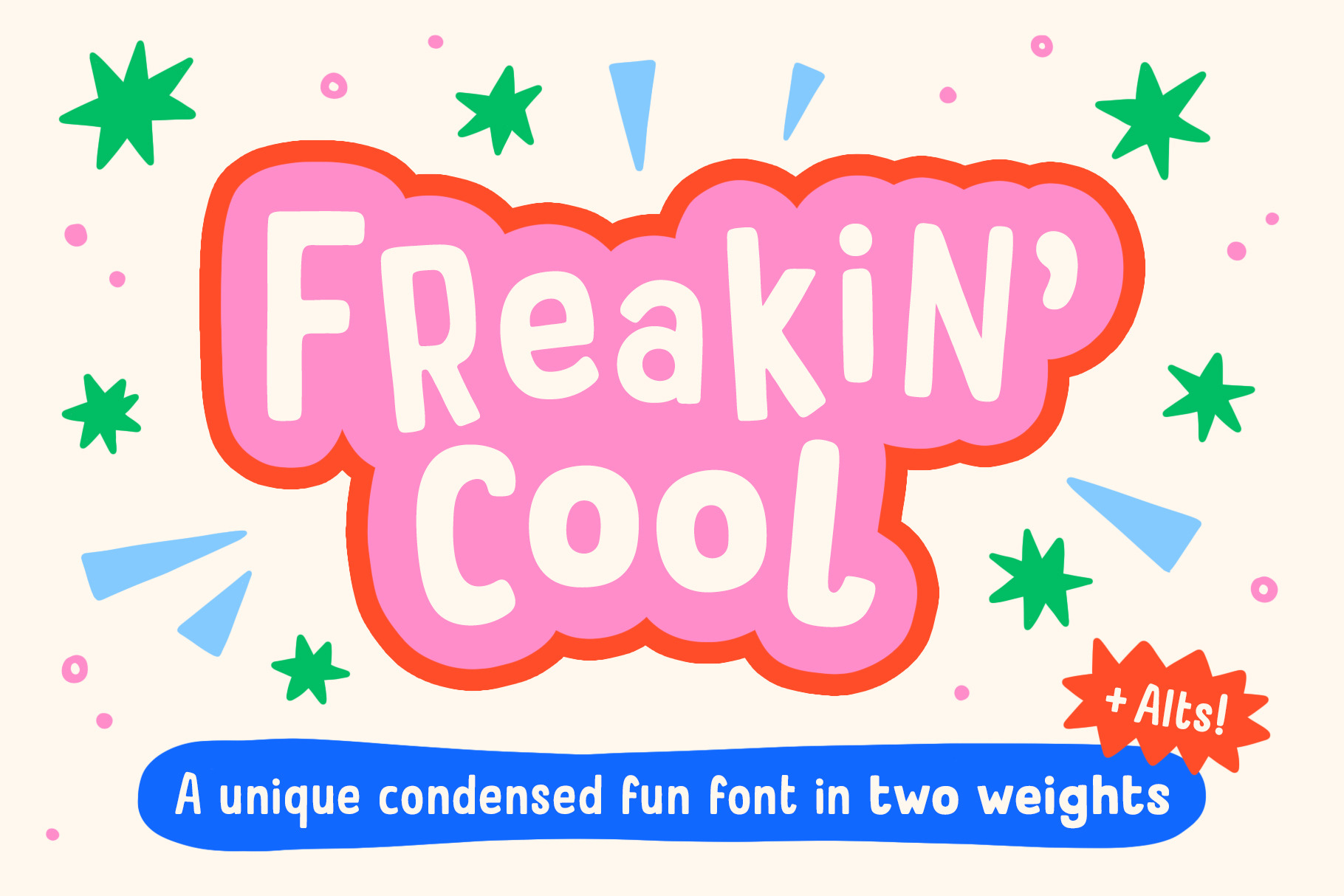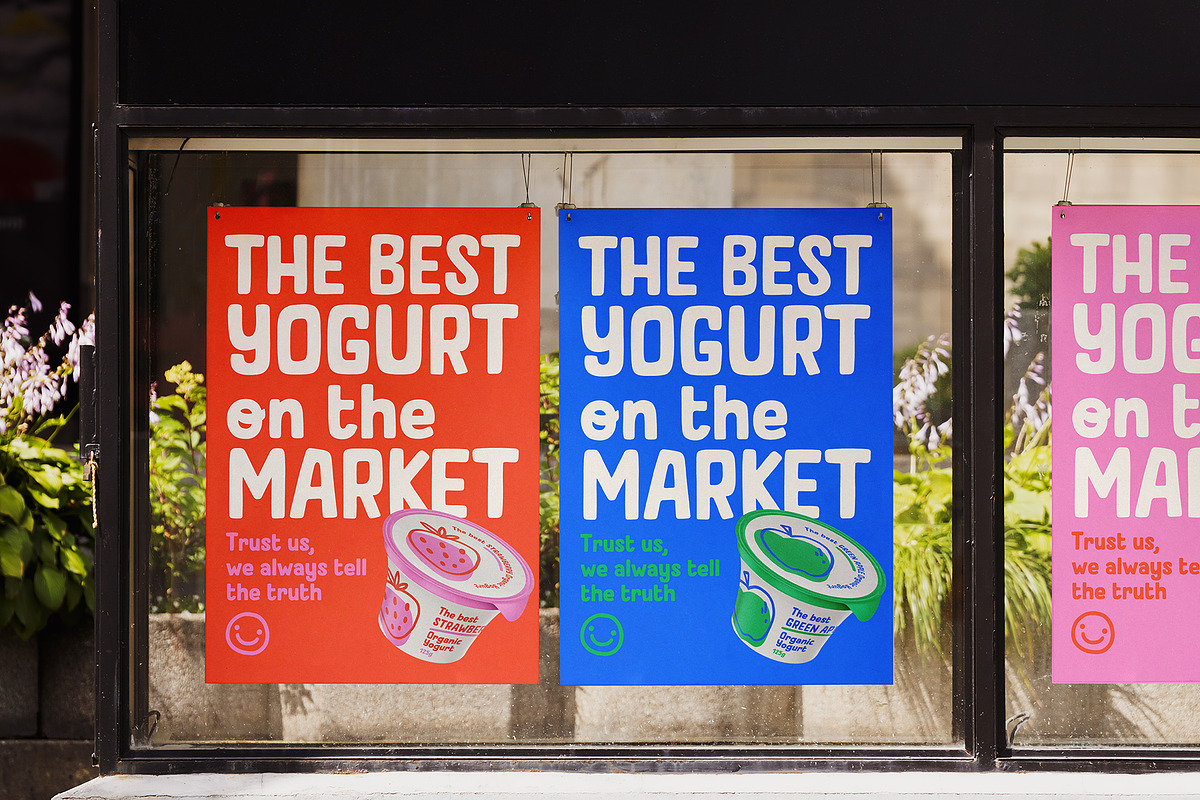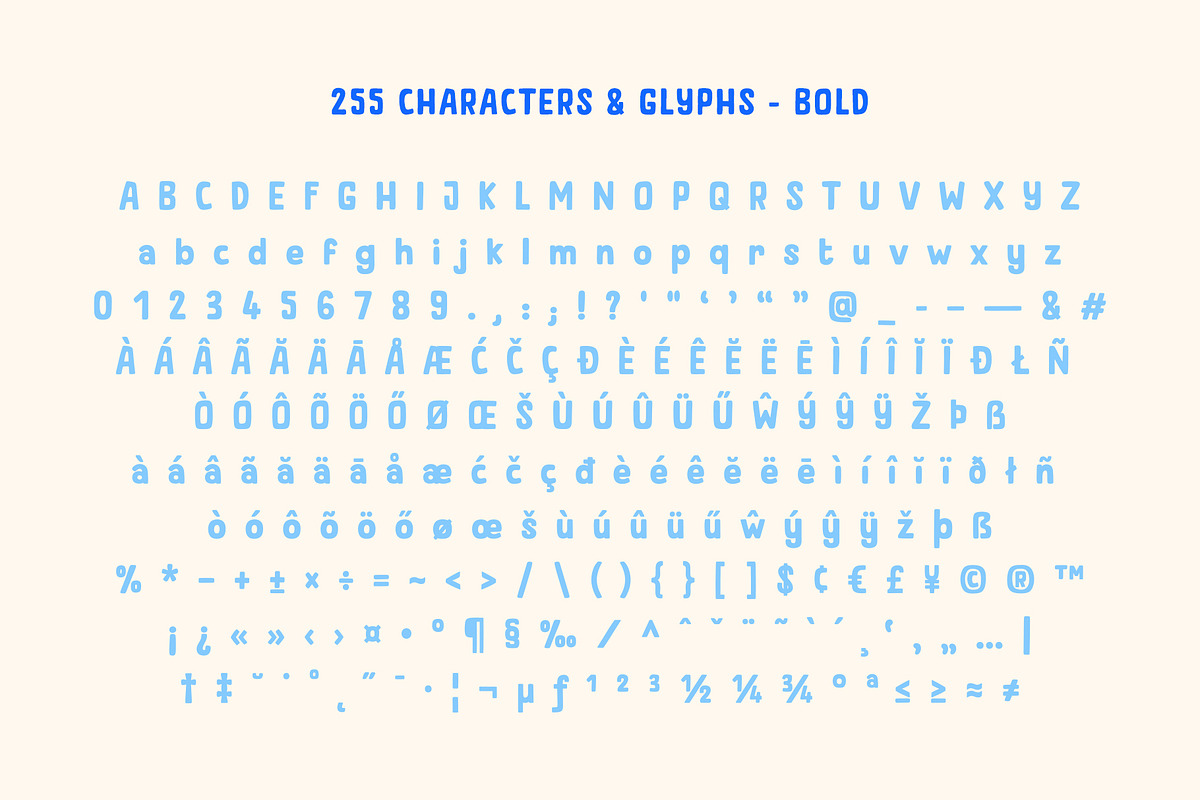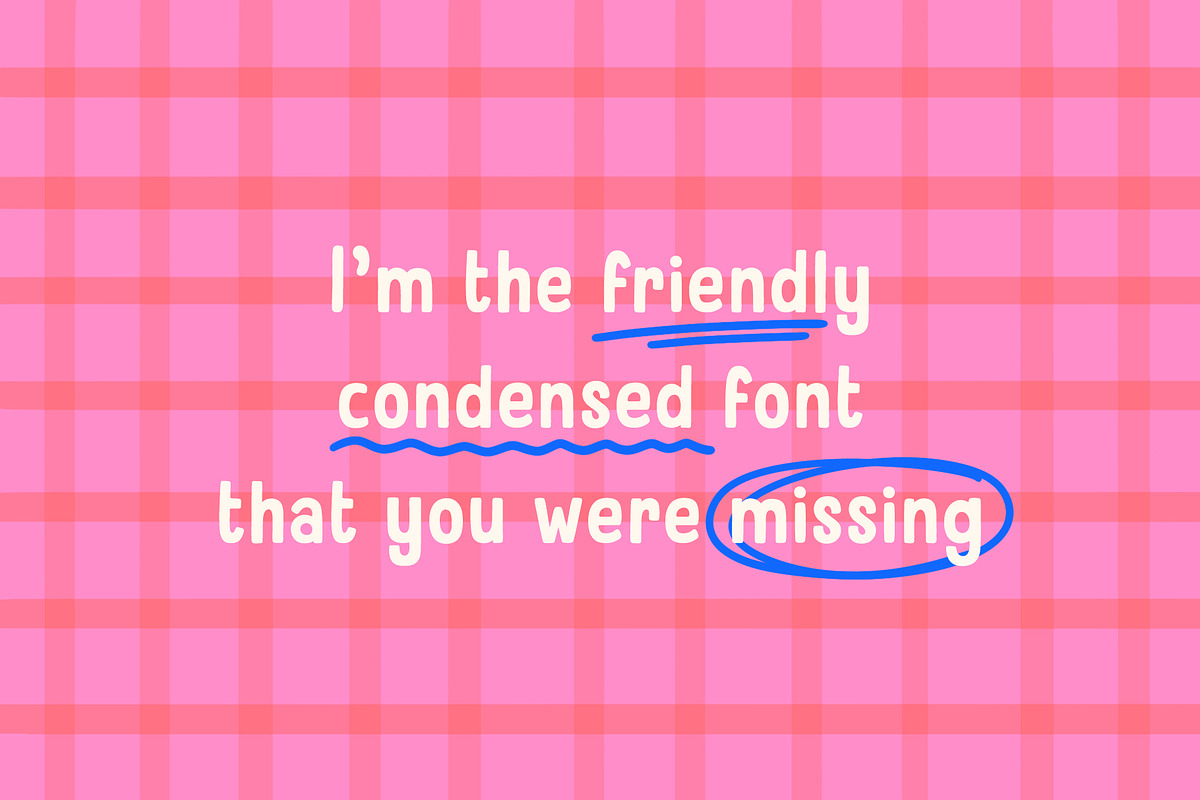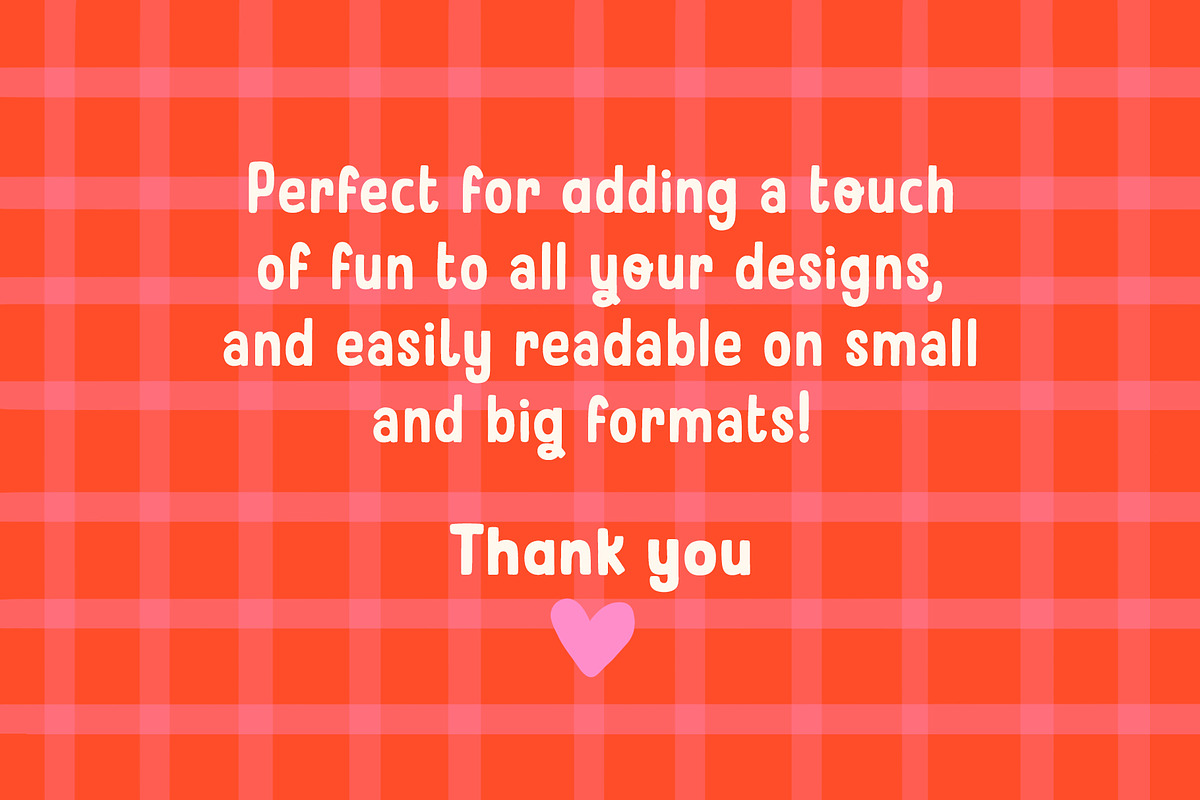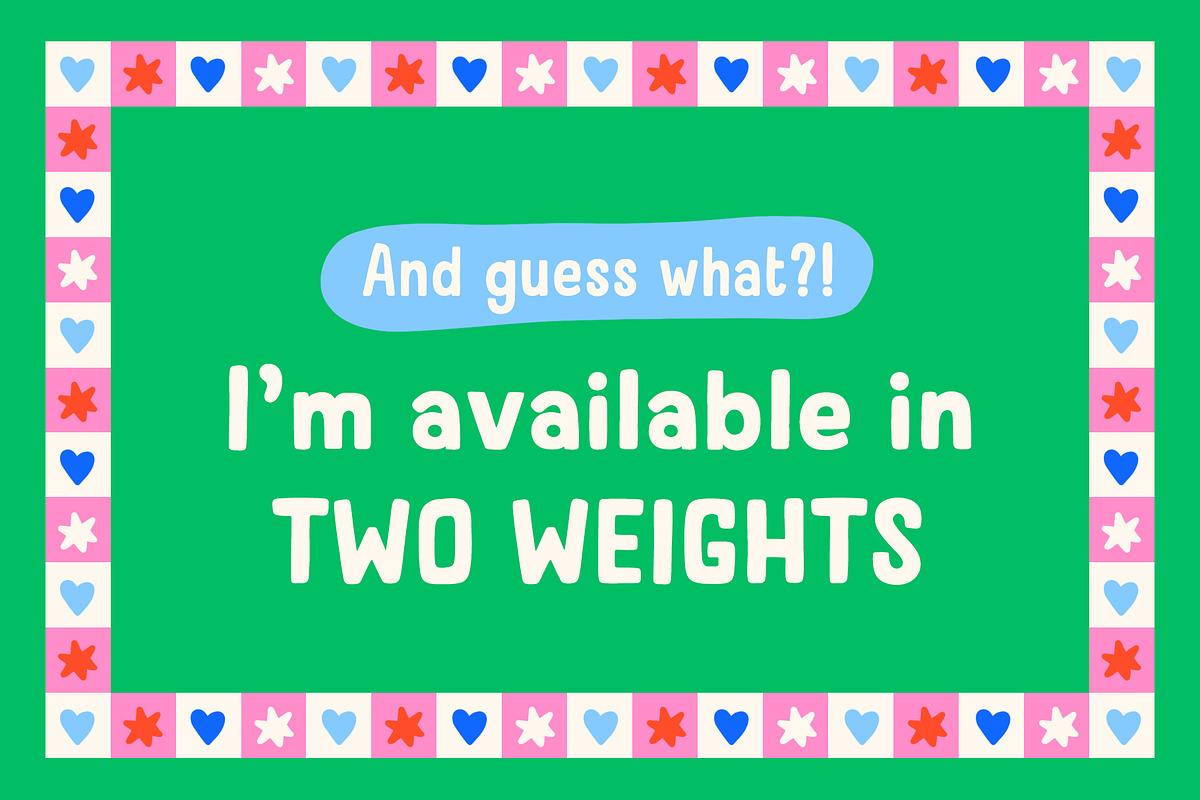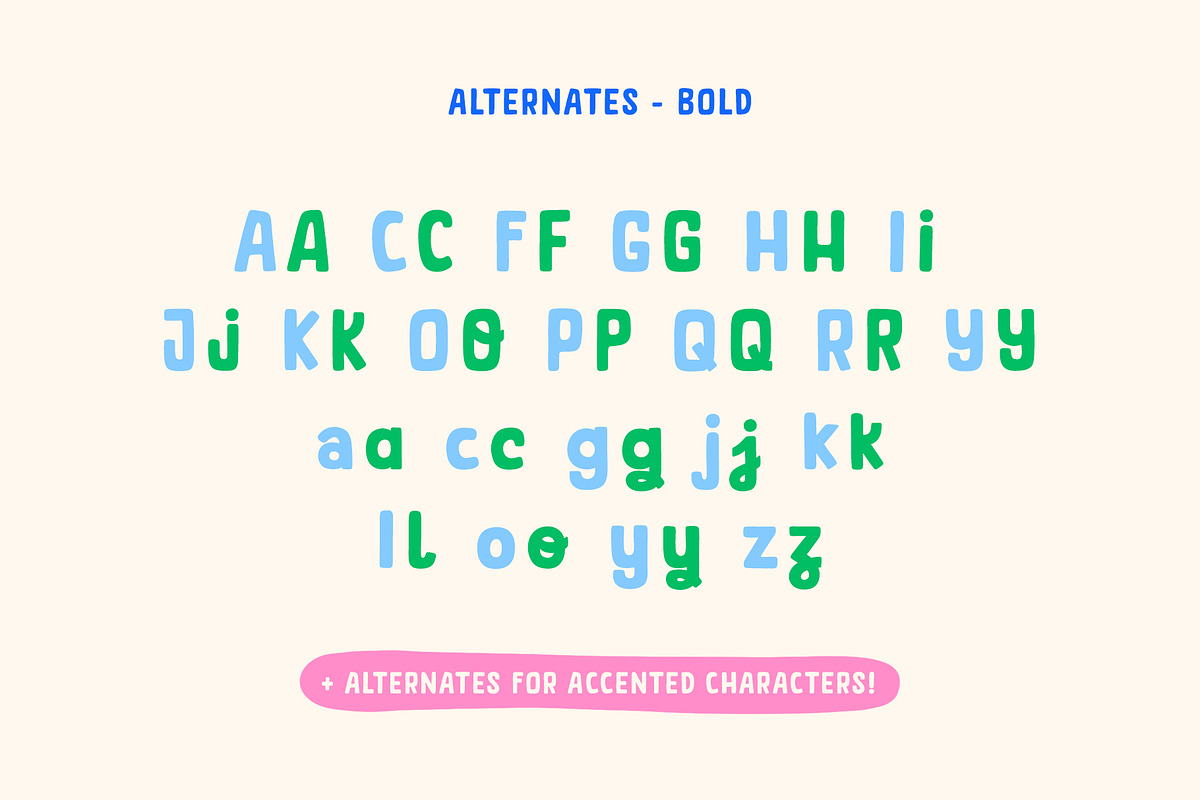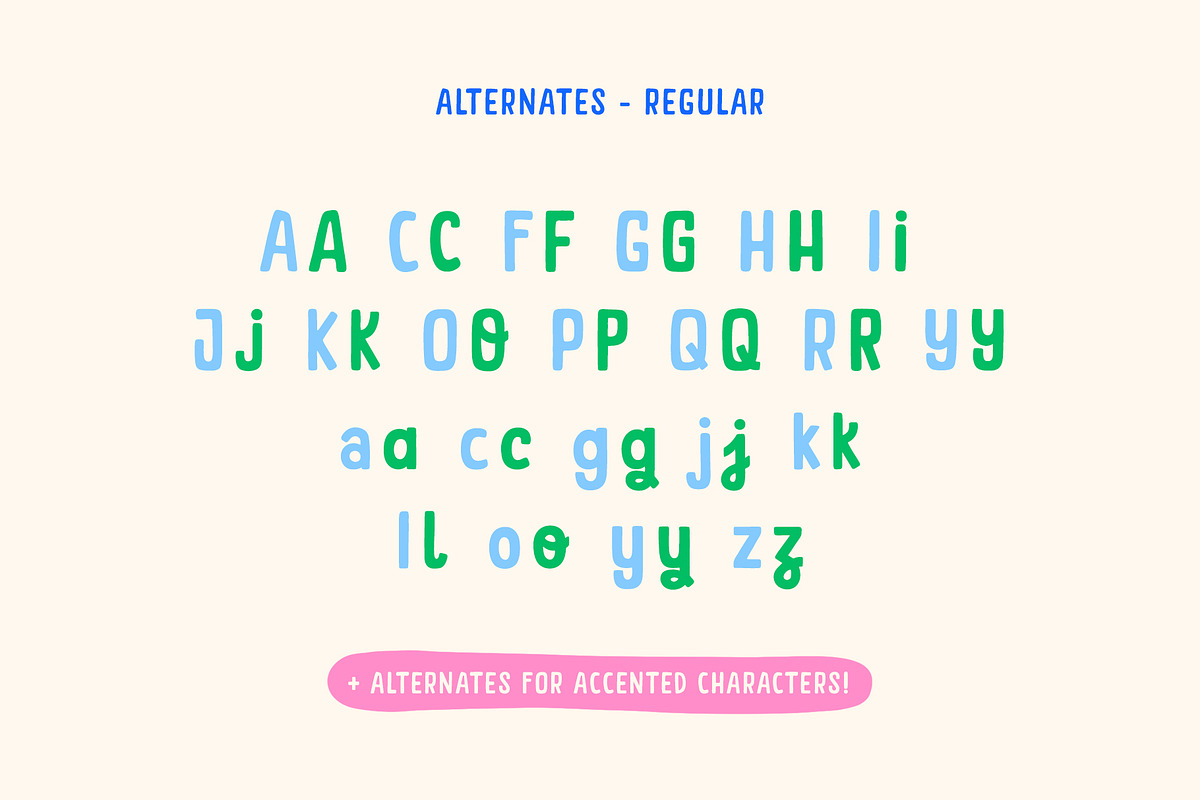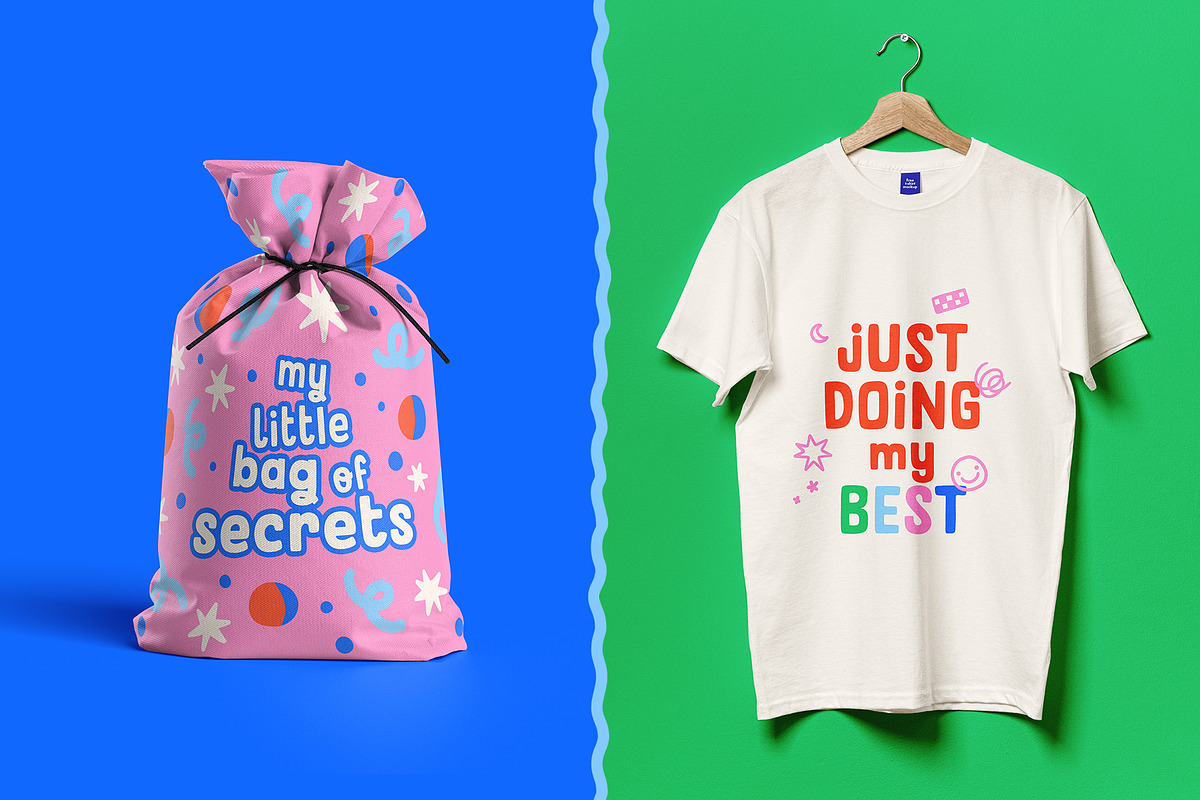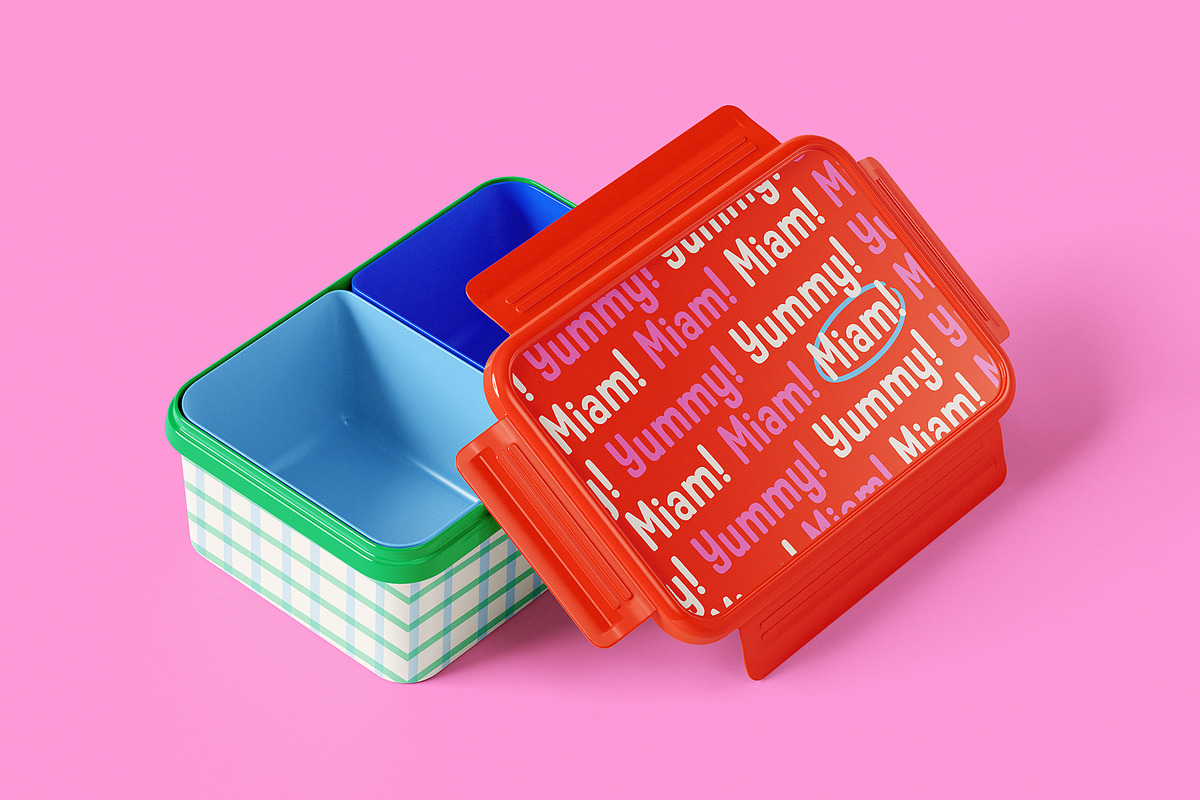
Freakin' Cool - Handwritten fonts
After the success of my Wobbly Bobbly font, I decided to create a new playful and friendly font, but with a condensed style! And this time I went all out with it as you'll find two different weights (regular and bold), and alternates for many letters to create that unique feel. It can be used for English, French, German, Italian and Spanish (or any other language that uses the same latin characters). You'll find a total of 255 characters and glyphs, including accents, punctuation, numbers, etc. AND multiple alternates. Enjoy!